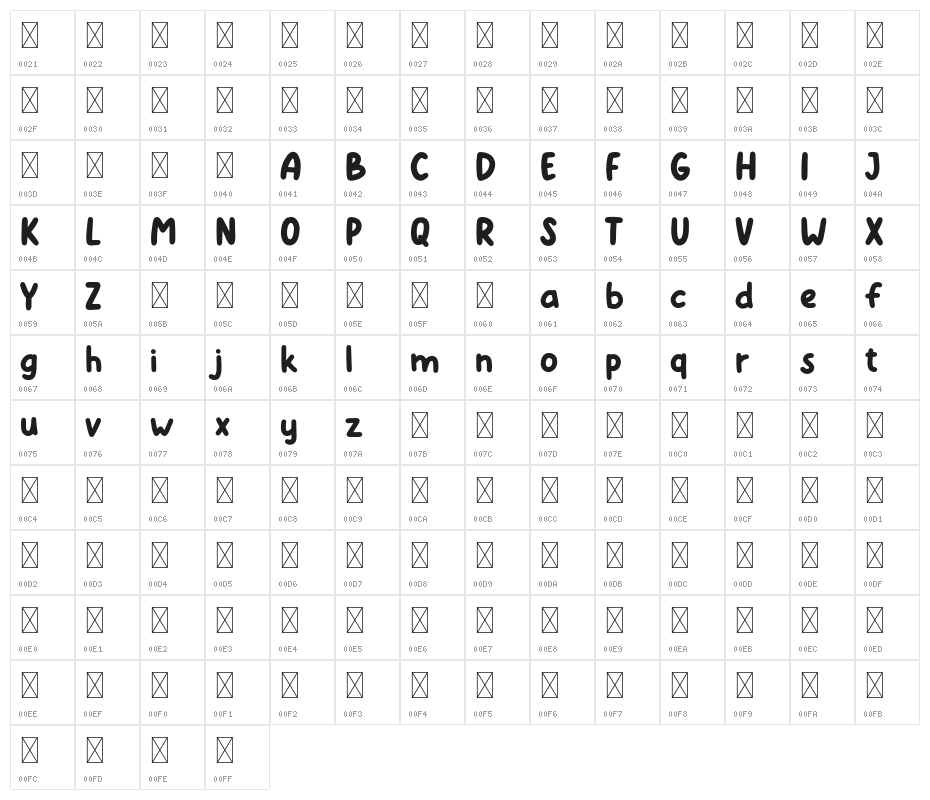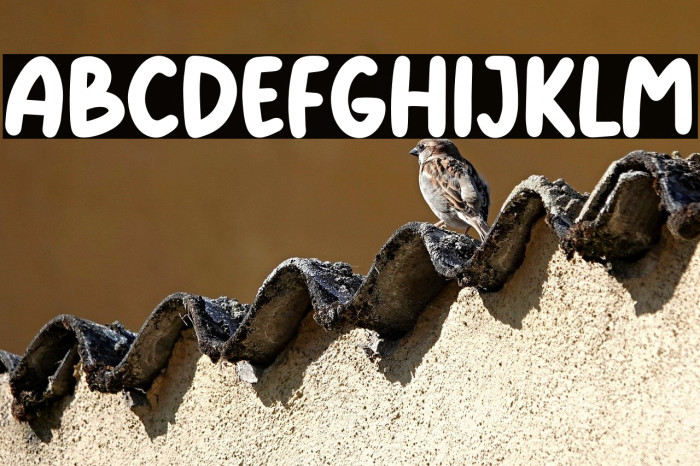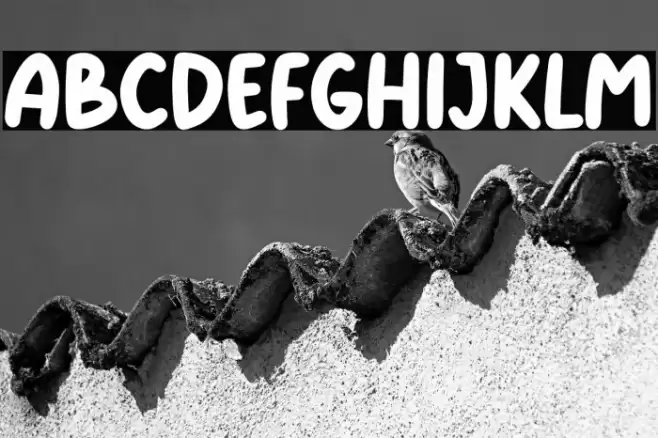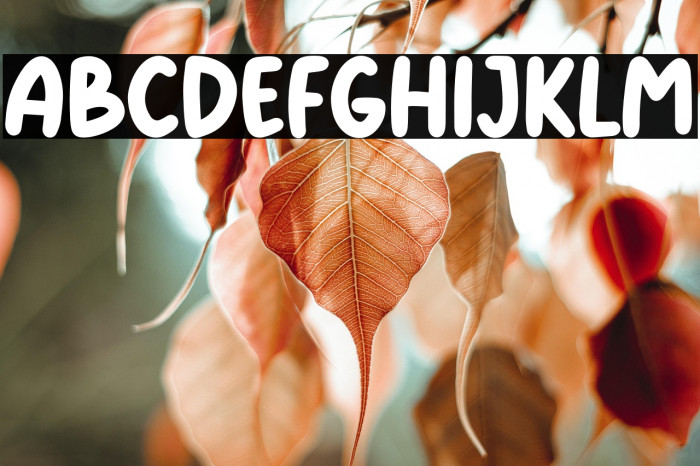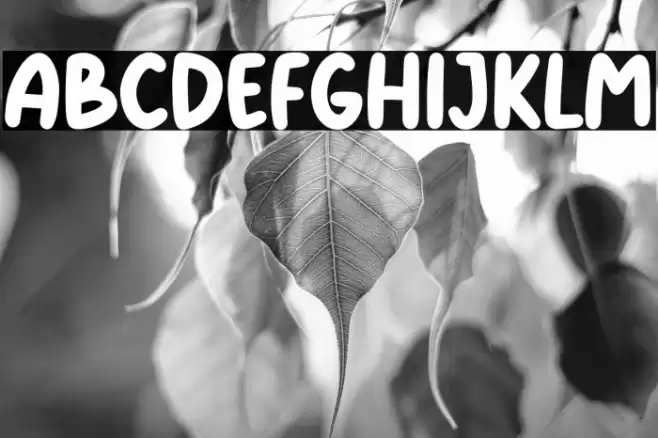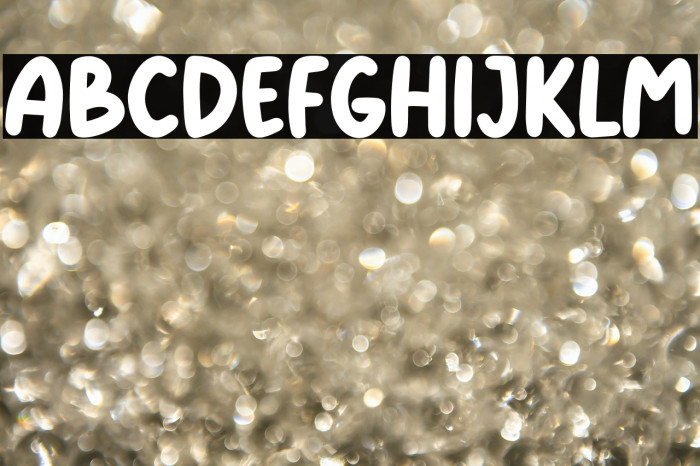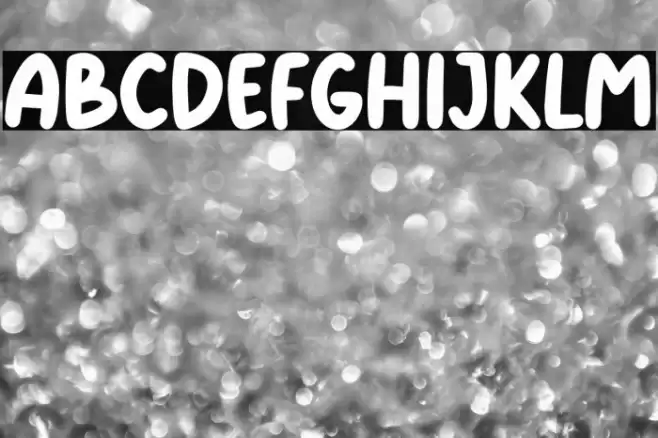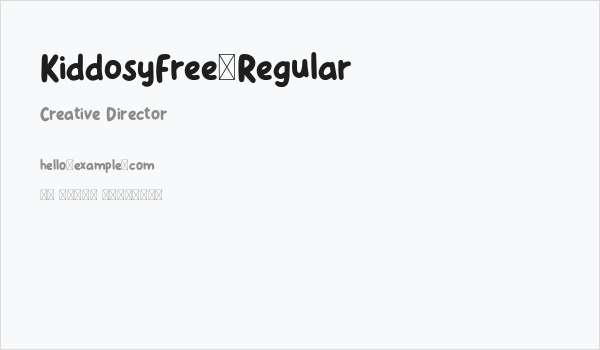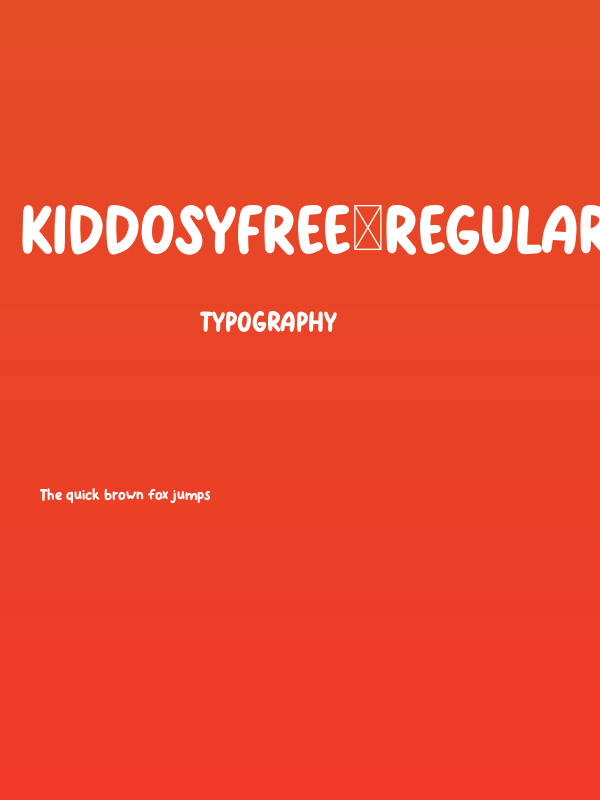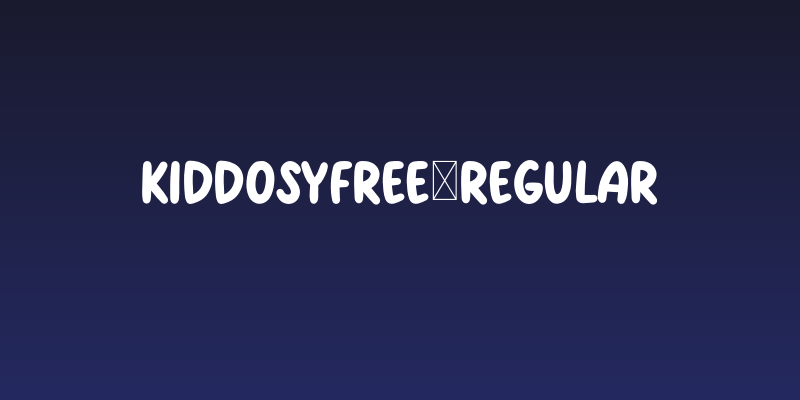
KiddosyFree-Regular Font
KiddosyFree-Regular Description
This playful and rounded font features bold, smooth curves and a friendly appearance. The letters are evenly weighted, giving it a consistent and approachable look. Its design is reminiscent of handwriting, with a casual and informal style that makes it perfect for projects aimed at children or for creating a fun and lively atmosphere. The font's simplicity and clarity ensure readability while maintaining a whimsical charm. It lacks any sharp edges, contributing to its soft and inviting aesthetic.
Overall StylePlayful
Proposed ProjectsIdeal for children's books, playful branding, casual invitations, and educational materials.